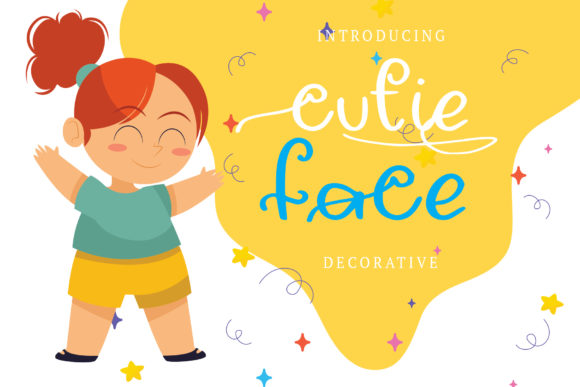
Cutie Face Font
About Cutie Face Font
Cutie Face is a beautiful, bouncy and whimsical handwritten font. Add this joyful font to your designs and notice how it brightens them up!